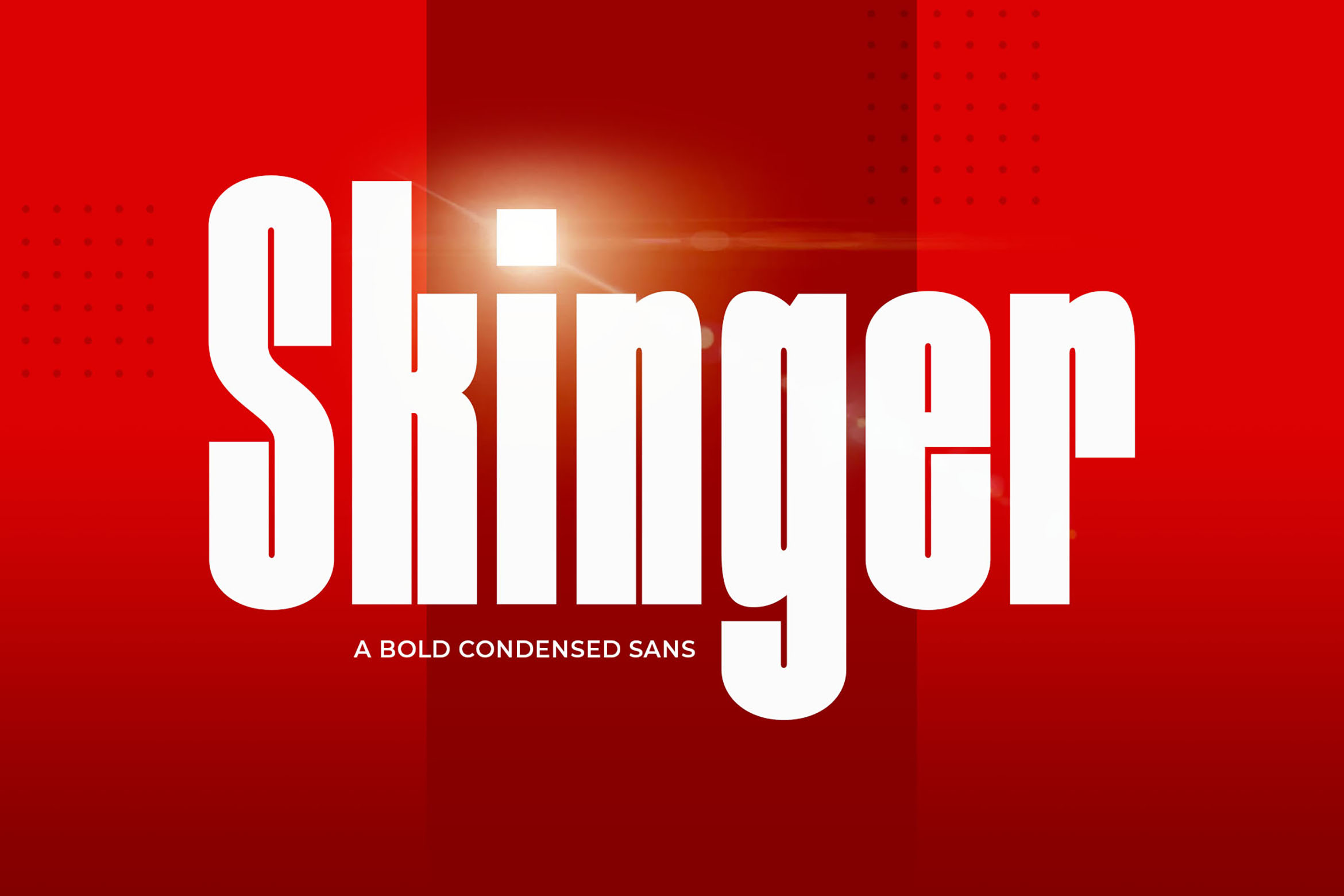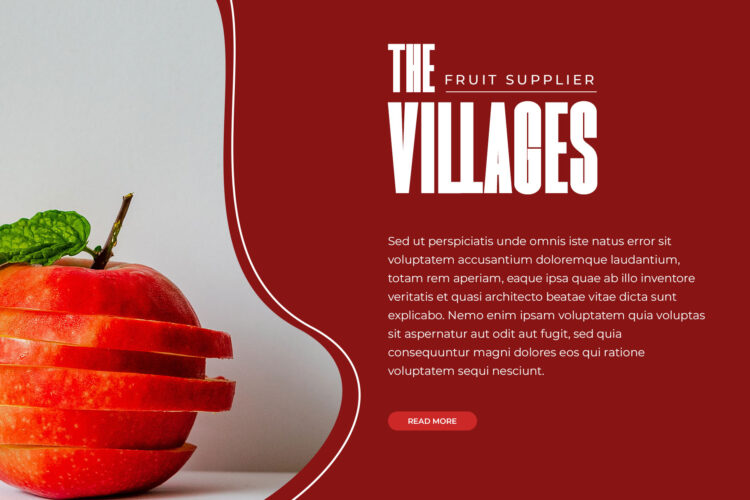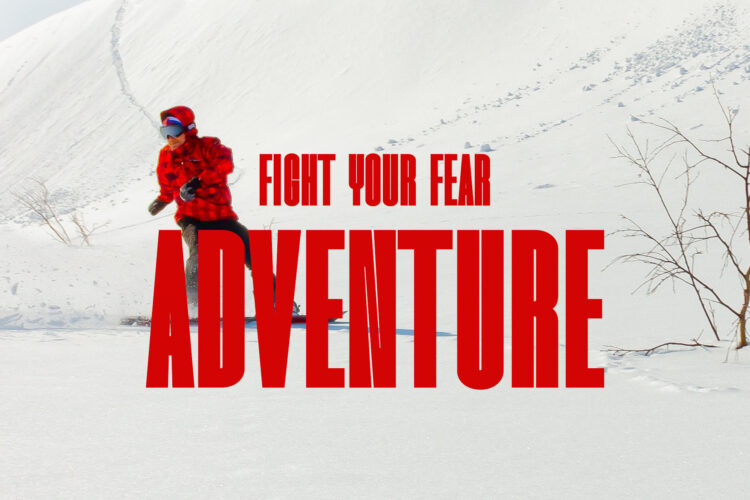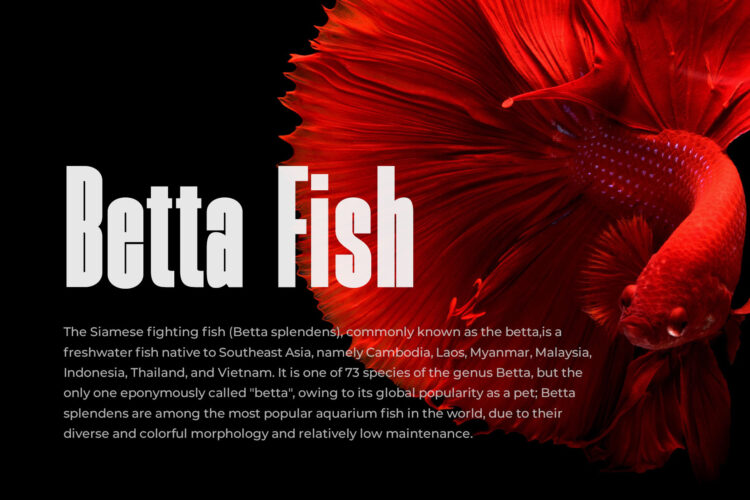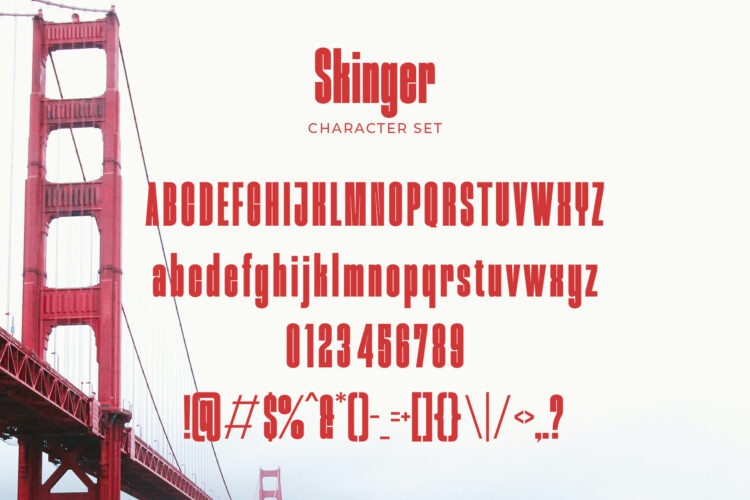
Introducing our new Skinger, modern sans serif font with elegant style this is perfect for branding, logos, invitation, magazines, product packaging and more.
Skinger – A Bold Condensed Sans